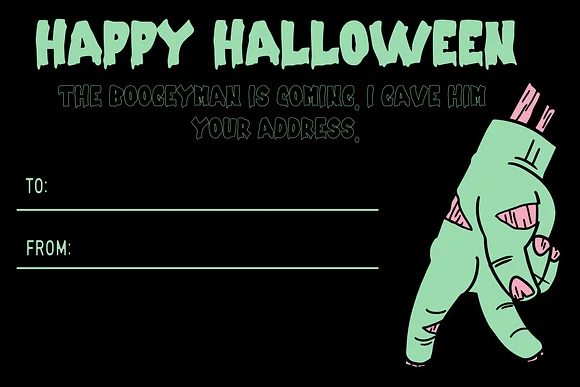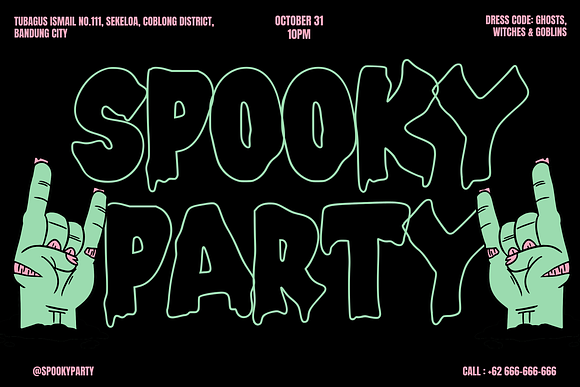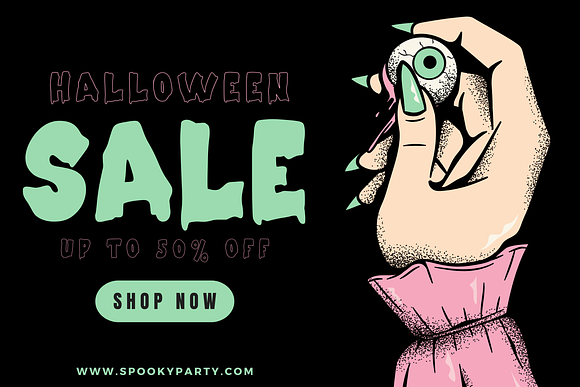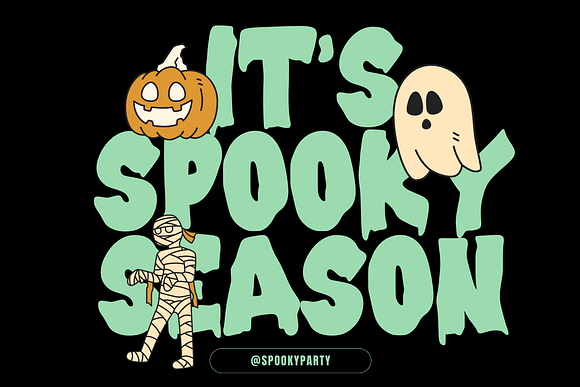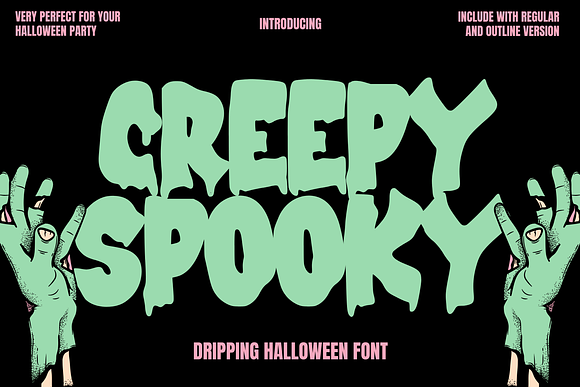
Creepy Spooky - Halloween Font
This spine-tingling font is perfect for haunted house attractions, spooky Halloween parties, creepy costume events, eerie seasonal decorations, frightening Halloween invitations, ghostly horror displays, scary Halloween marketing, bone-chilling seasonal signage, unsettling Halloween branding, and spine-crawling Halloween messaging materials.
Creepy Spooky - Halloween Font is exciting because it masterfully combines the slow-building unease of creepiness with the sudden shock of spookiness through its unnervingly crafted letterforms that capture both the psychological dread and supernatural fear that make Halloween the most deliciously frightening night of the year. The font features disturbingly twisted characters with ghostly irregularities and spine-tingling details that evoke the perfect storm of horror emotions - the creeping dread that makes your skin crawl combined with the sudden spooky surprises that make you jump, incorporating shadowy flourishes and phantom elements that create typography as unsettling and startling as footsteps in an empty attic. Each letter showcases the dual nature of Halloween fear, with creeping curves and spooky accents that make readers feel both deeply uncomfortable and thrillingly frightened, creating the perfect atmosphere for Halloween celebrations that deliver genuine scares.
The Creepy Spooky - Halloween Font family includes fear-inspired variations: Regular, Bold, Light, Haunting, and Terrifying versions. The collection features special frightening elements including ghost accents, shadow effects, phantom flourishes, and spectral ornaments. Additional components include haunted borders, ghostly frames, creepy decorations, and spooky ornamental designs that enhance the font's creepy spooky Halloween appeal and create cohesive spine-tingling horror themes.
Professional haunters and Halloween scare specialists will find Creepy Spooky - Halloween Font Free Download to be an invaluable tool for creating authentically frightening Halloween communications that deliver the perfect combination of psychological unease and supernatural terror. This frighteningly crafted font transforms ordinary Halloween messaging into instruments of genuine fear that create the lasting discomfort and thrilling scares that make truly effective Halloween experiences so memorably terrifying and irresistibly frightening.
The typeface includes comprehensive character support with horror styling that maintains excellent readability while conveying the deep unease and sudden terror of creepy spooky Halloween celebrations. The font's frightening design ensures spine-chilling results across both amateur Halloween applications and professional horror attractions.
Perfect for haunted attractions, scary Halloween events, frightening seasonal marketing, and spine-tingling Halloween celebrations, this font delivers bone-chilling visual impact that communicates authentic fear, psychological unease, and the perfect combination of creepy dread and spooky terror that makes Halloween the most thrillingly frightening and deliciously scary celebration of the year.